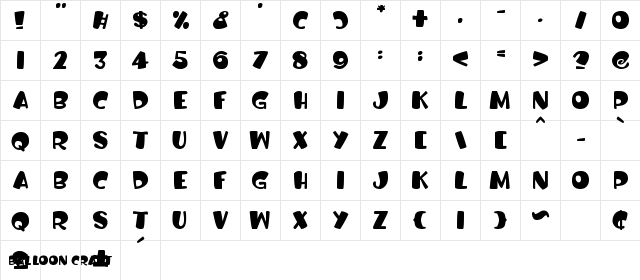
Balloon Craft Regular
| Designer | Joseph Dawson |
Design Context for Balloon Craft Typeface
Balloon Craft is a composed and adaptable typeface that performs quietly and consistently across a wide range of design contexts.